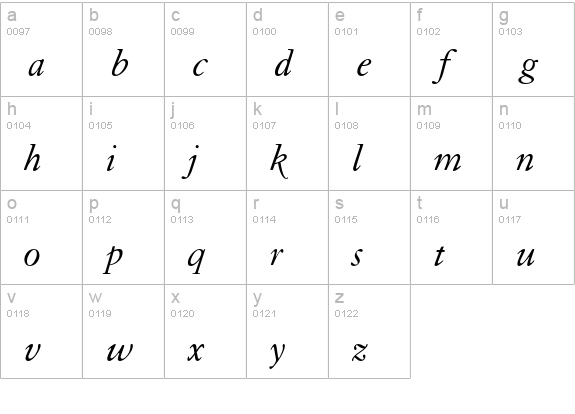
Granjon Italic Font Details
Granjon Italic is a distinctive, italic variant in the Granjon typeface family \xE2\x80\x94 well suited to design and typography projects.
Granjon Italic is a timeless and elegant font that exudes sophistication and grace. Its flowing lines and delicate curves make it perfect for adding a touch of class to any design project. Whether used for formal invitations, editorial layouts, or branding materials, Granjon Italic brings a sense of refinement and beauty. What sets Granjon Italic apart is its versatility and readability, making it suitable for a wide range of applications. The subtle slant and graceful serifs create a harmonious balance that is pleasing to the eye. Its understated elegance makes it a favorite among designers looking for a font that is both classic and modern. The best part is that Granjon Italic is available for free download at FontsMarket.com. This means you can easily access this exquisite font and use it in your projects without any cost. Don't miss out on the opportunity to elevate your designs with the timeless charm of Granjon Italic. Download it today and add a touch of sophistication to your creations.